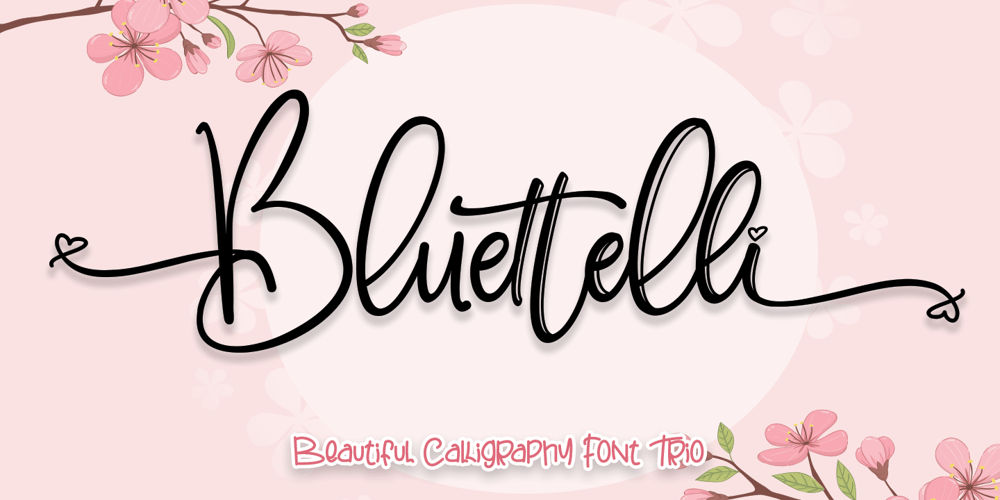
Bluettelli Font Family was designed by Thomas Aradea and published by Letterara. Bluettelli contains 2 styles and family package options. Bluettelli is a fantastic font trio that combines three beautiful script calligraphy. It has a feminine and elegant look which is great for logos, invitations, and blogs, but can also be used to make a striking headline. Get inspired by this extraordinary set!